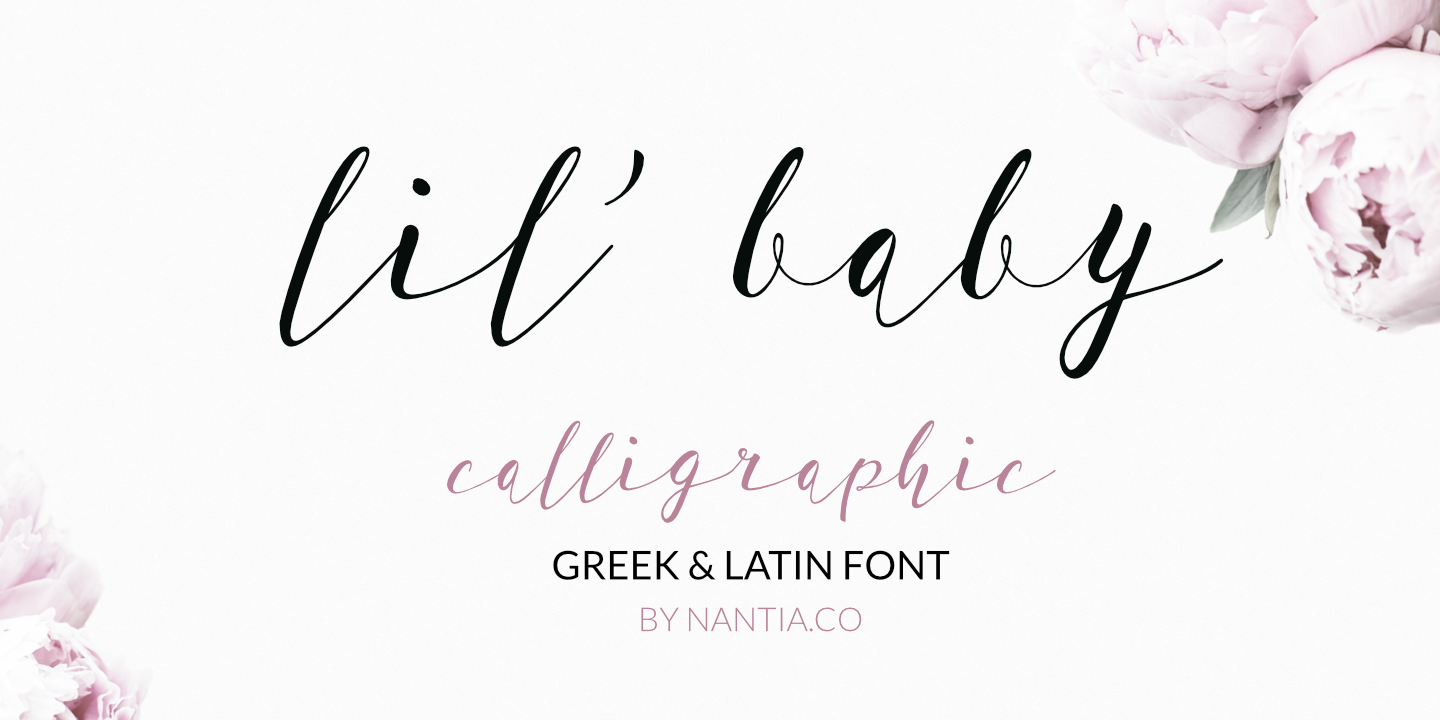
Lil Baby Font is perfect for baby boutique branding, children's nursery décor, pediatric clinic signage, infant product packaging, maternity photography logos, baby shower invitations, children's book covers, daycare center materials, family photography studios, and gentle parenting blog graphics.
What makes Lil Baby Font so exciting is its tender embodiment of innocent sweetness and nurturing warmth through delicately crafted letterforms that capture the precious essence of early childhood and the gentle love that surrounds new life. The font's design philosophy celebrates the pure joy and protective care that defines the baby years, featuring soft curves, gentle proportions, and loving details that mirror the peaceful sleep of newborns, the tender touches of caring hands, and the overwhelming love that fills every moment of early parenthood. Each character cradles viewers with warmth and comfort, creating a visual language that instantly communicates safety, tenderness, and the precious vulnerability that makes babies so cherished and beloved by families and communities around the world.
The Lil Baby Font family includes nurturing variations: Regular, Bold, Light, Medium, Condensed, Extended, Italic, Cuddle, and Gentle styles. Each variation maintains the font's characteristic baby sweetness while offering different levels of tender expression and nurturing detail for various family-oriented and child-focused design applications.
When searching for a typeface that embodies the essence of baby innocence and parental love, Lil Baby Font Free Download represents the perfect fusion of gentle design with protective warmth that elevates any project to new levels of family authenticity and baby-focused appeal.
The lovingly crafted letterforms of Lil Baby Font demonstrate superior attention to nurturing design principles, featuring gentle proportions, caring spacing, and soft curves that ensure optimal readability while maintaining the font's distinctive baby character. Its versatile design adapts beautifully from intimate baby announcements to welcoming nursery wall displays.
Professional designers working on baby brands, family services, and child-focused organizations particularly value the font's ability to convey innocence, safety, and parental love. The typeface works exceptionally well for projects targeting new parents, family caregivers, and anyone seeking to project nurturing positioning and baby-centered excellence.
The comprehensive OpenType features of Lil Baby Font include gentle alternates, caring ligatures, and specialized baby-themed characters that enable designers to create authentic family typography while maintaining the font's distinctive tender character throughout all design elements and baby-focused applications.